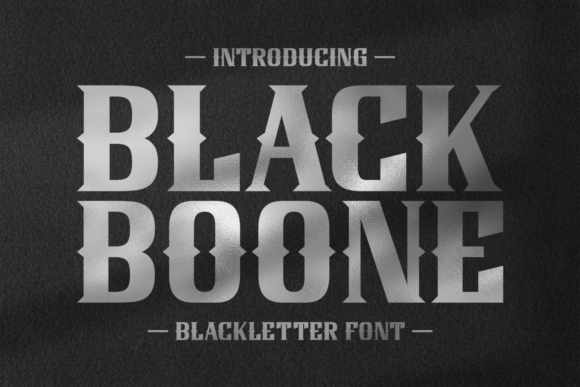
Introducing Black Boone Font, the epitome of elegance and sophistication in the world of typography! Crafted by the talented team at Creative Fabrica Fonts, this stunning blackletter font is set to revolutionize your design projects. With its thick strokes and mesmerizing curves, Black Boone Font is the go-to choice for those seeking the best font for an elegant logo.
Unleash your creativity and make a lasting impression with Black Boone Font. Its timeless appeal adds a touch of class to any design, making it an ideal choice for posters, t-shirts, product packaging, advertisements, cards, headers, book covers, and more. The versatility of this font ensures that it adapts seamlessly to a wide range of projects, giving your creations a truly refined and polished look.
Elevate your brand identity with the regal charm of Black Boone Font. Captivate your audience and leave a lasting impression with its captivating presence. As soon as your audience lays eyes on the impeccable craftsmanship and attention to detail, they will be drawn into a world of elegance and sophistication.
Invoke a sense of nostalgia and tradition with the timeless beauty of blackletter typography. Black Boone Font pays homage to this classic style while infusing it with a contemporary twist, resulting in a font that is both striking and unique. Its bold letterforms demand attention and exude confidence, making it a powerful tool for logo designs that leave a lasting impact.
When it comes to creating a visual identity that speaks volumes, Black Boone Font is the ultimate choice. Its rich history and association with luxury and refinement make it the perfect companion for high-end brands, exclusive events, and luxurious products. With its exceptional legibility and exquisite details, your audience will be captivated by the sheer beauty that this font exudes.
Unleash your creativity and let Black Boone Font transport your designs to new heights. Bring your vision to life with its exceptional quality and versatility. Whether you're designing for print or digital media, this font will seamlessly adapt to your needs, ensuring that your message is delivered with the utmost elegance and impact.
In conclusion, Black Boone Font is the embodiment of elegance, sophistication, and captivating design. Its versatility and timeless appeal make it the best font for an elegant logo. With its regal charm and attention-grabbing presence, this font will elevate your designs to new heights. Experience the beauty of blackletter typography and unleash your creativity with Black Boone Font today!